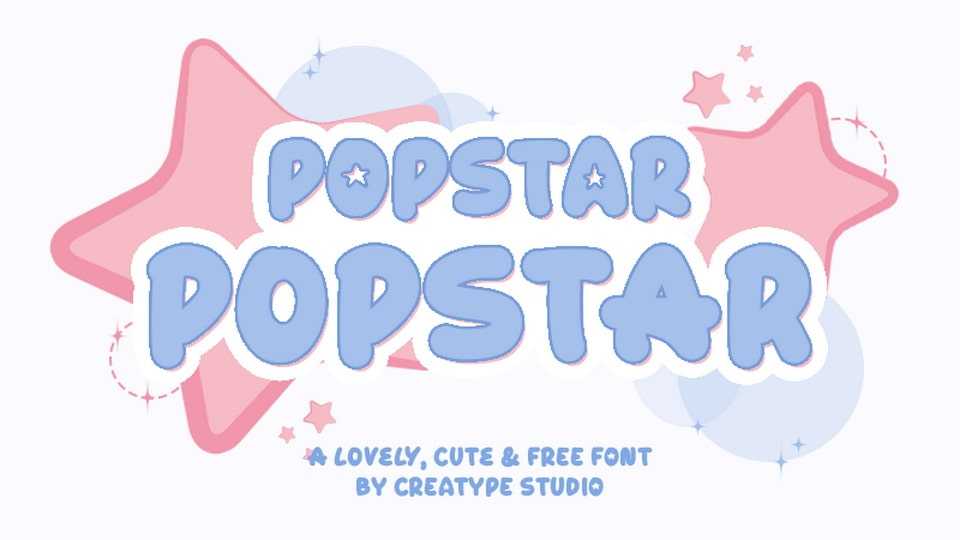
Download Popstar font, a lovely and cute hand-crafted typeface that brings a sprinkle of magic to every word with soft, rounded forms and whimsical lines.